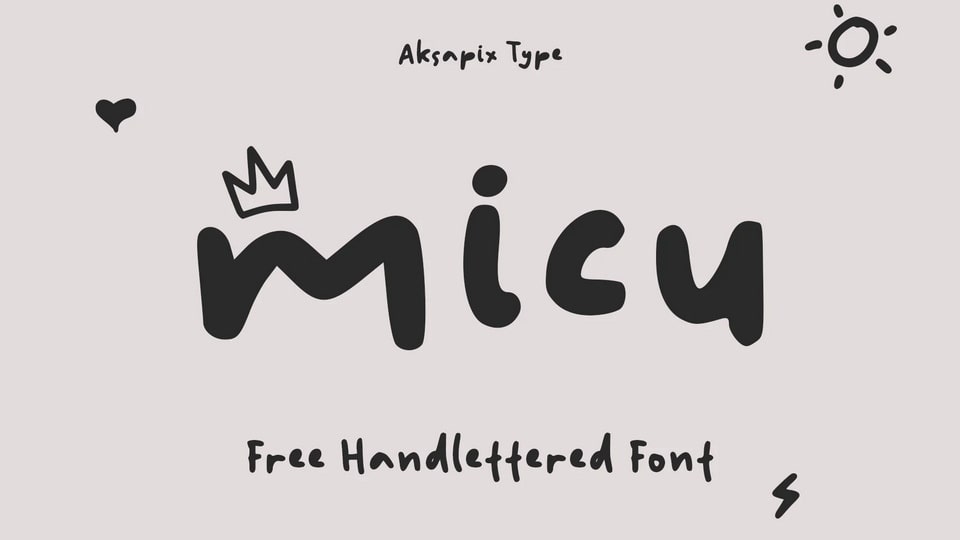
Download Micu font, a charming and versatile typeface that brings a personal touch to your designs. Micu’s handcrafted appearance adds warmth and authenticity, making it perfect for a variety of creative projects
Designer: Aksapix Type